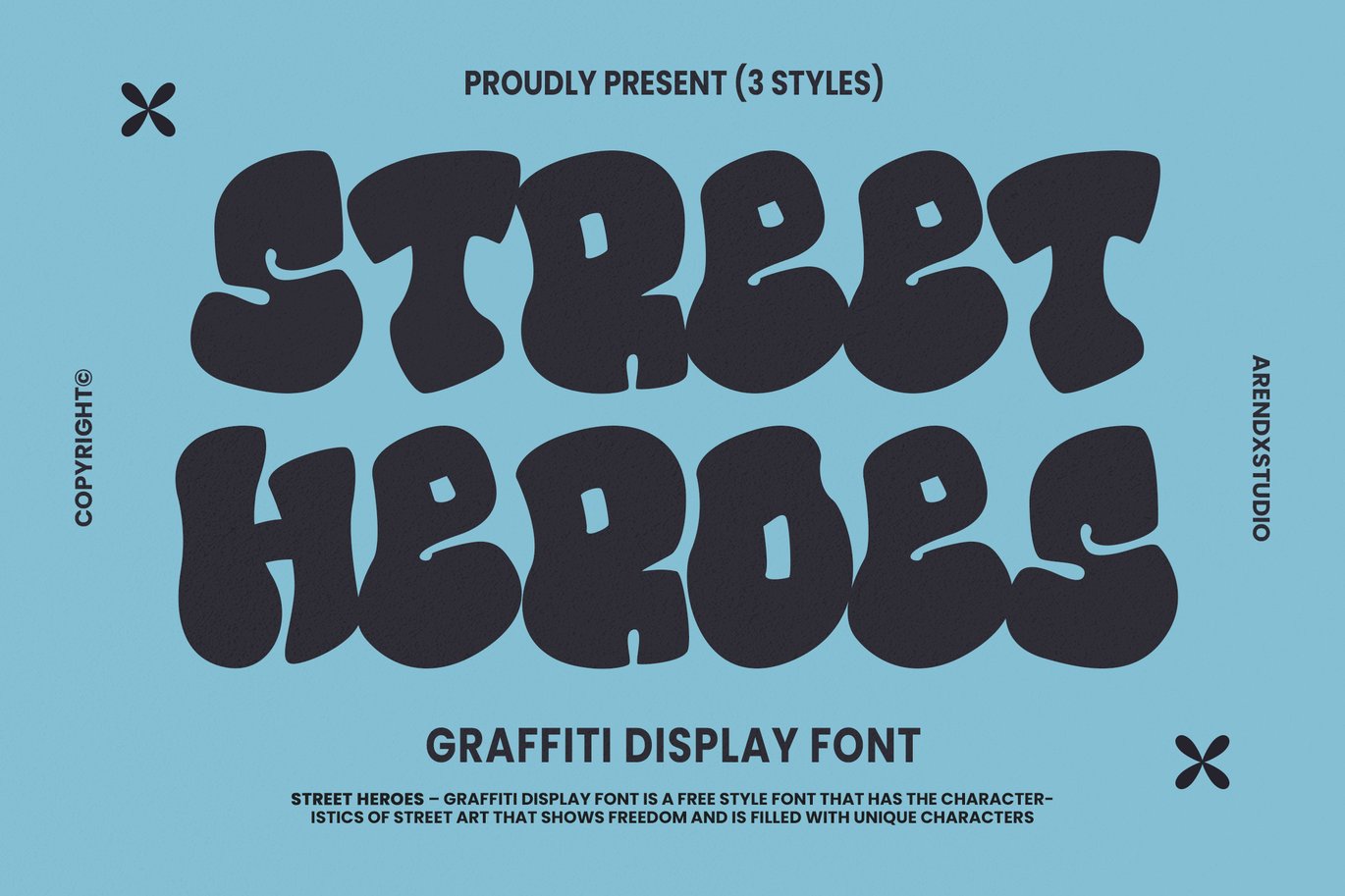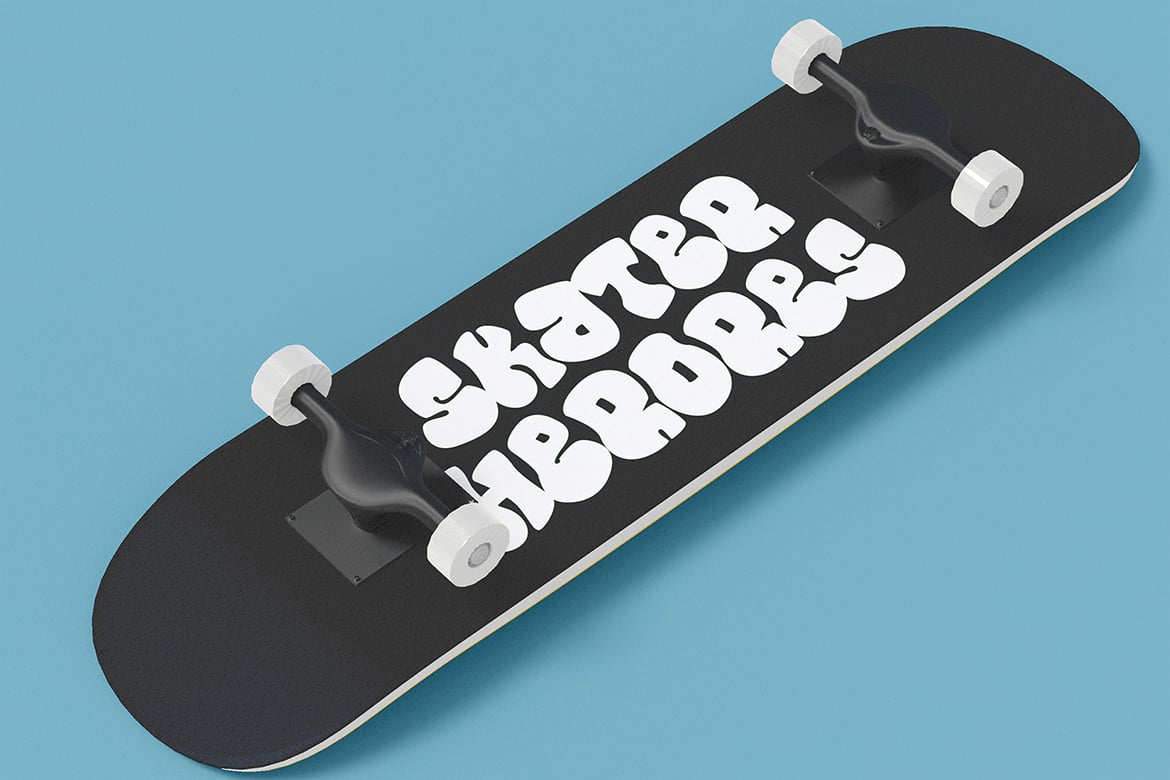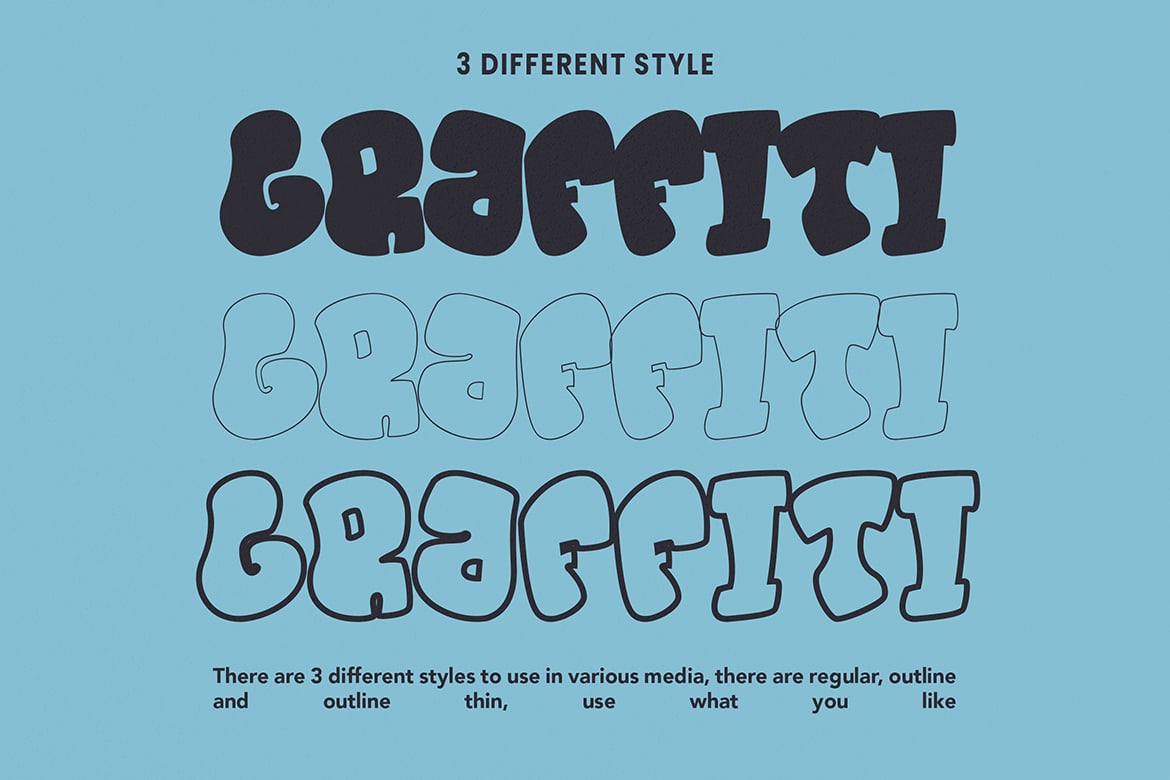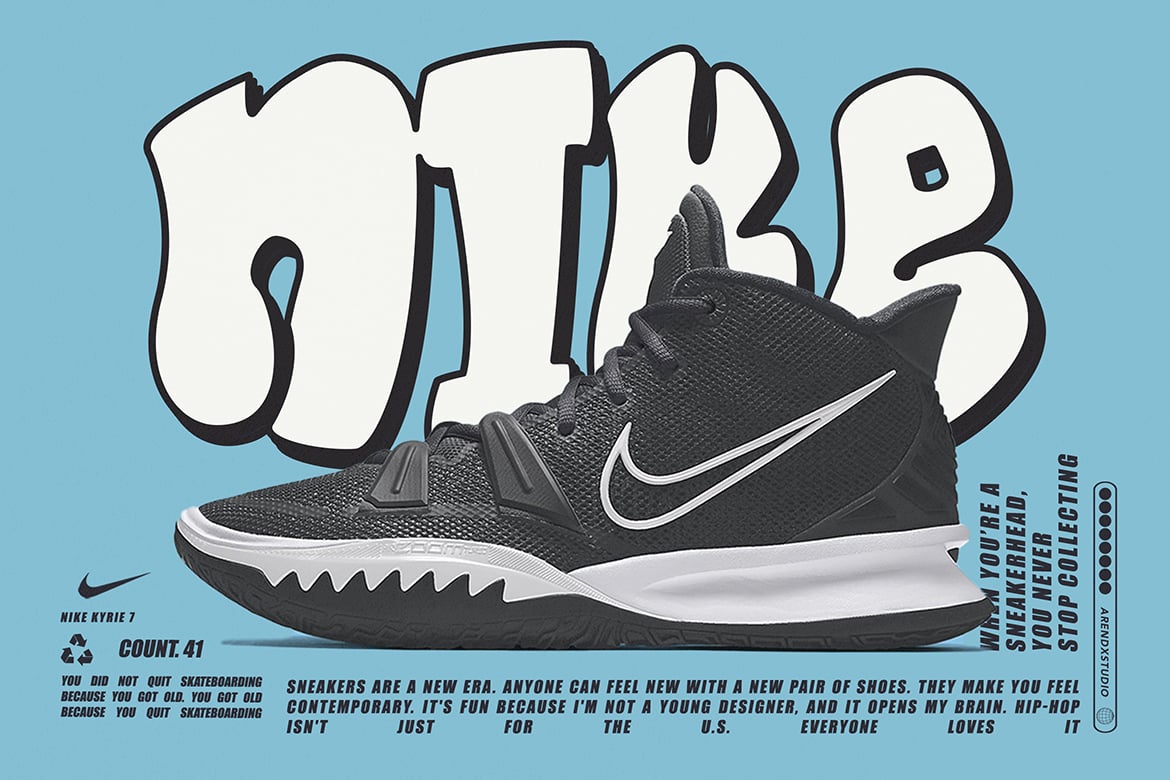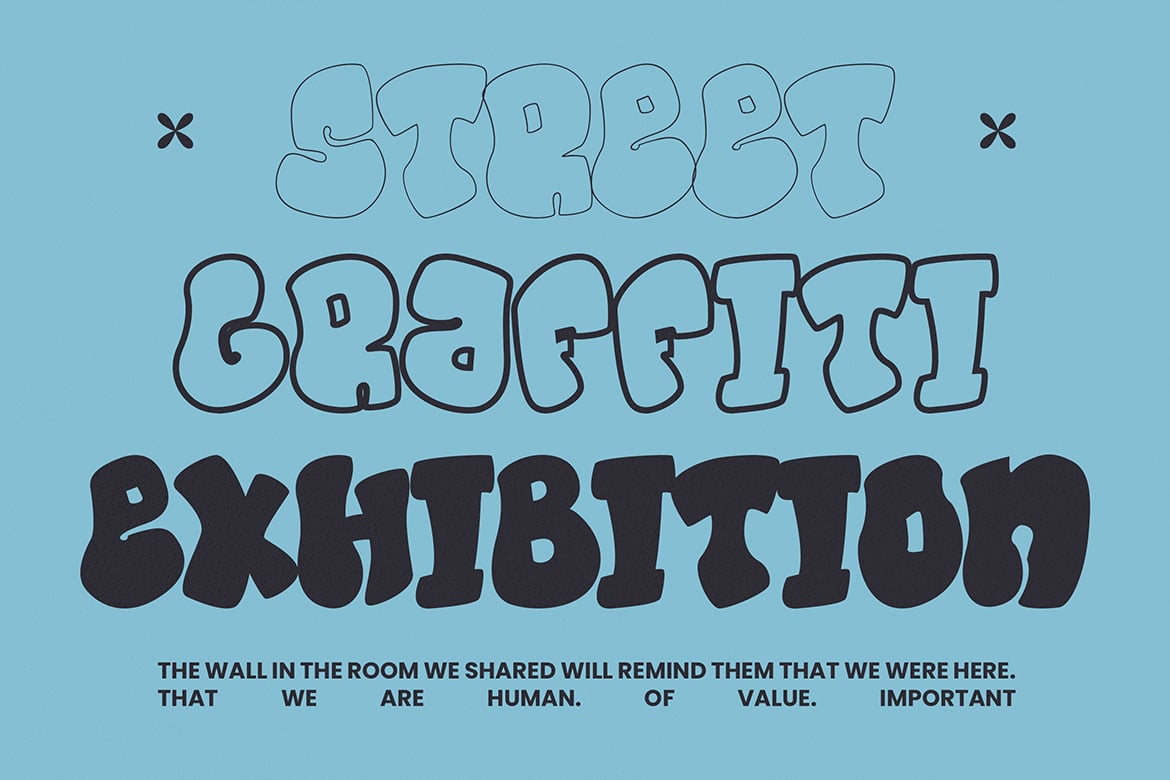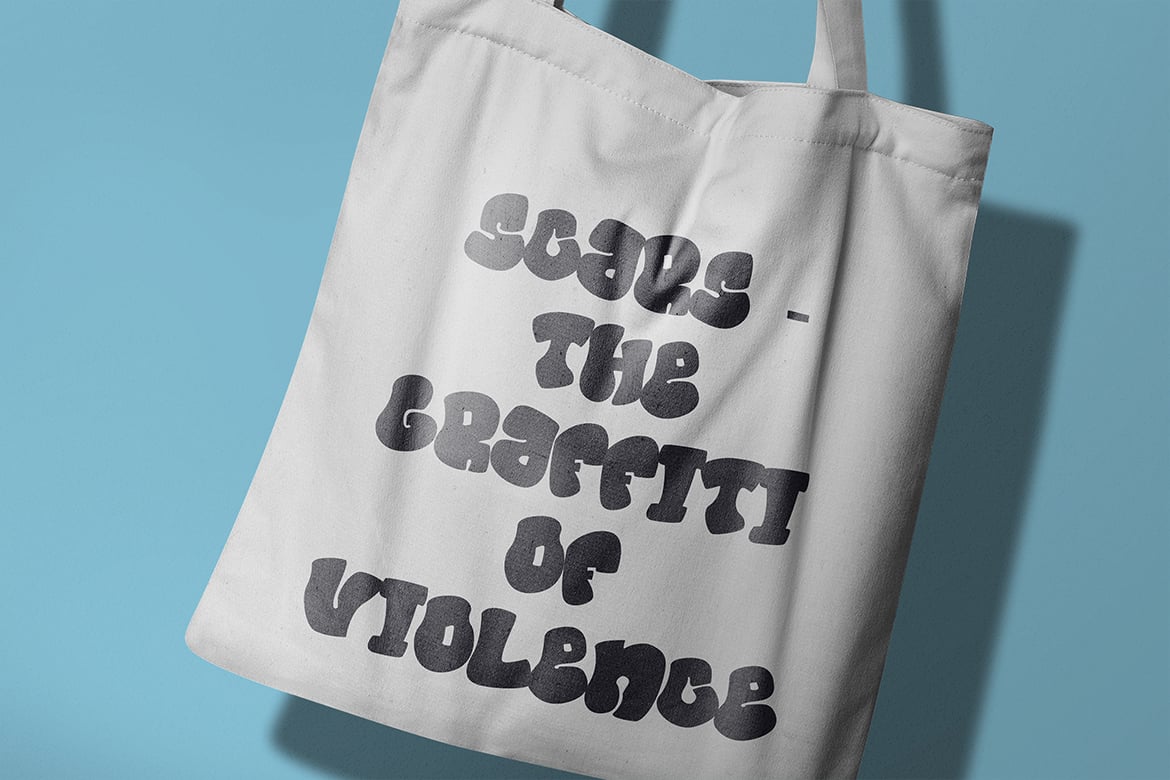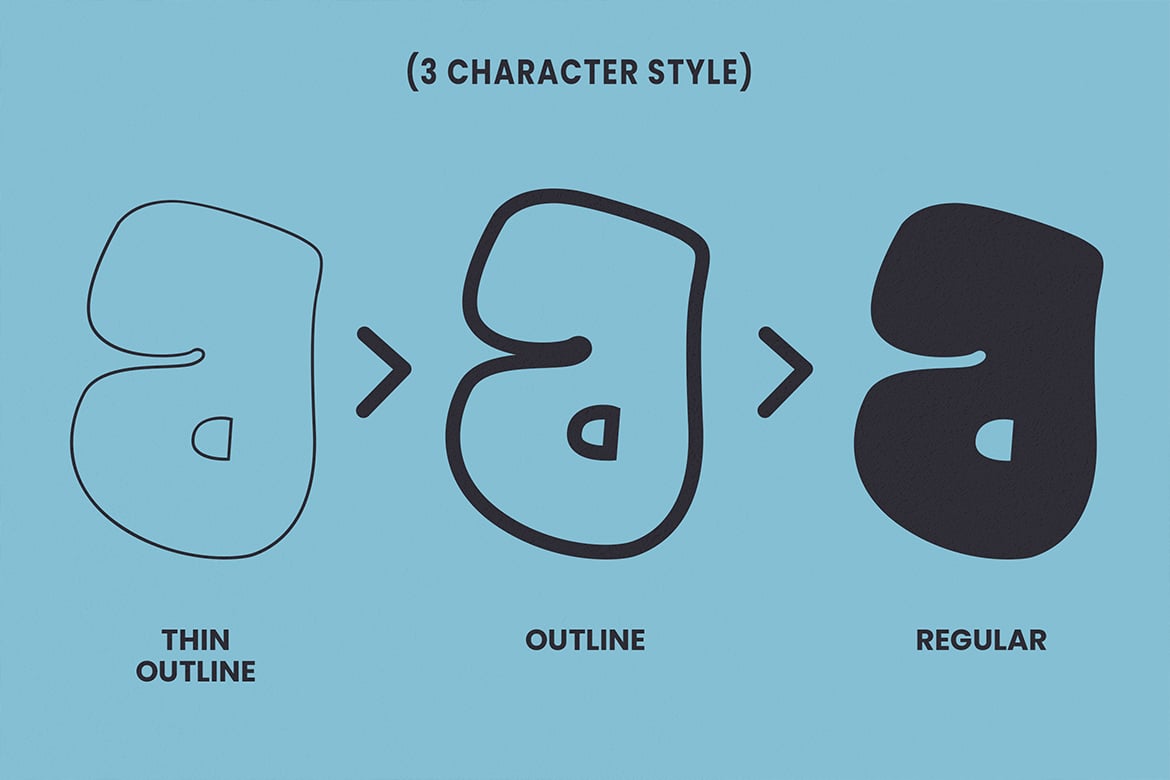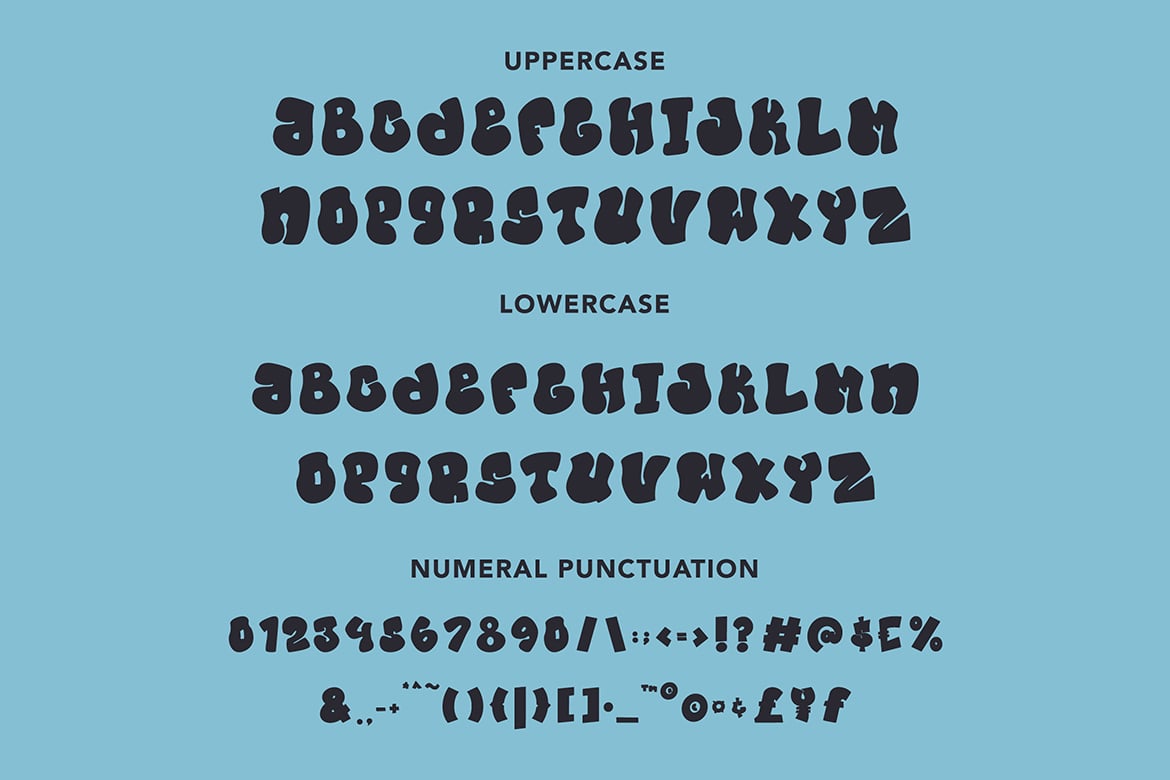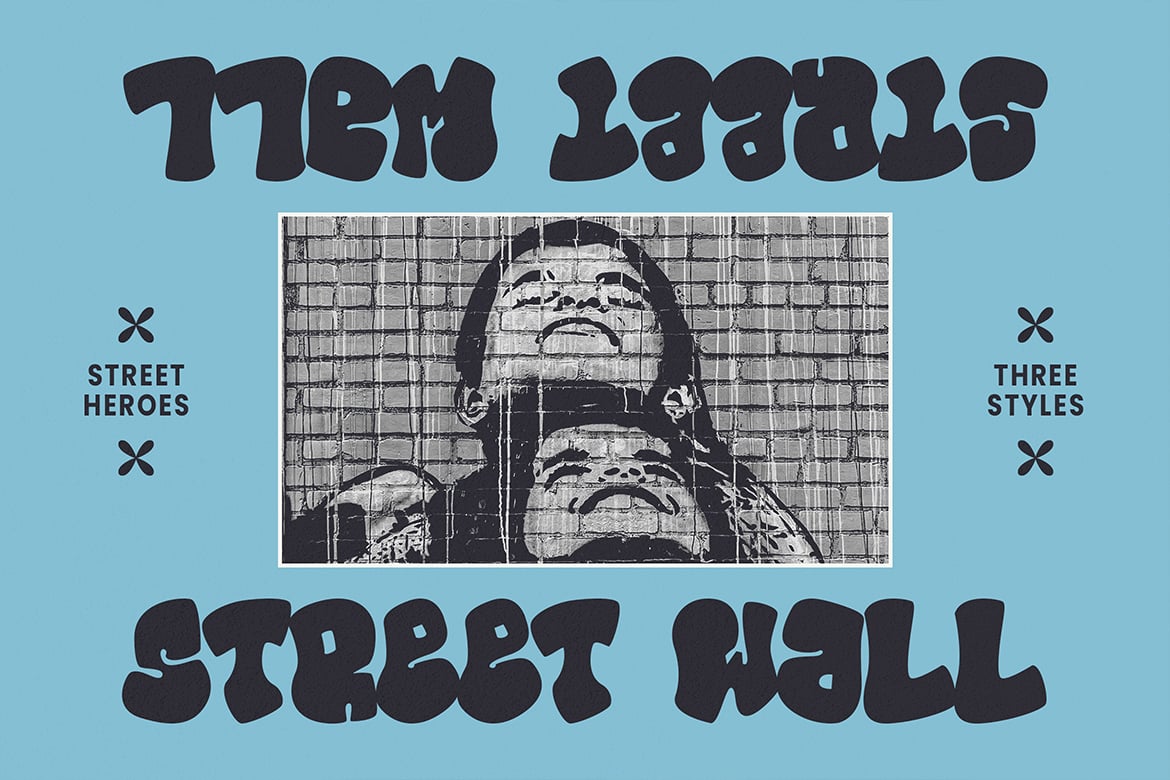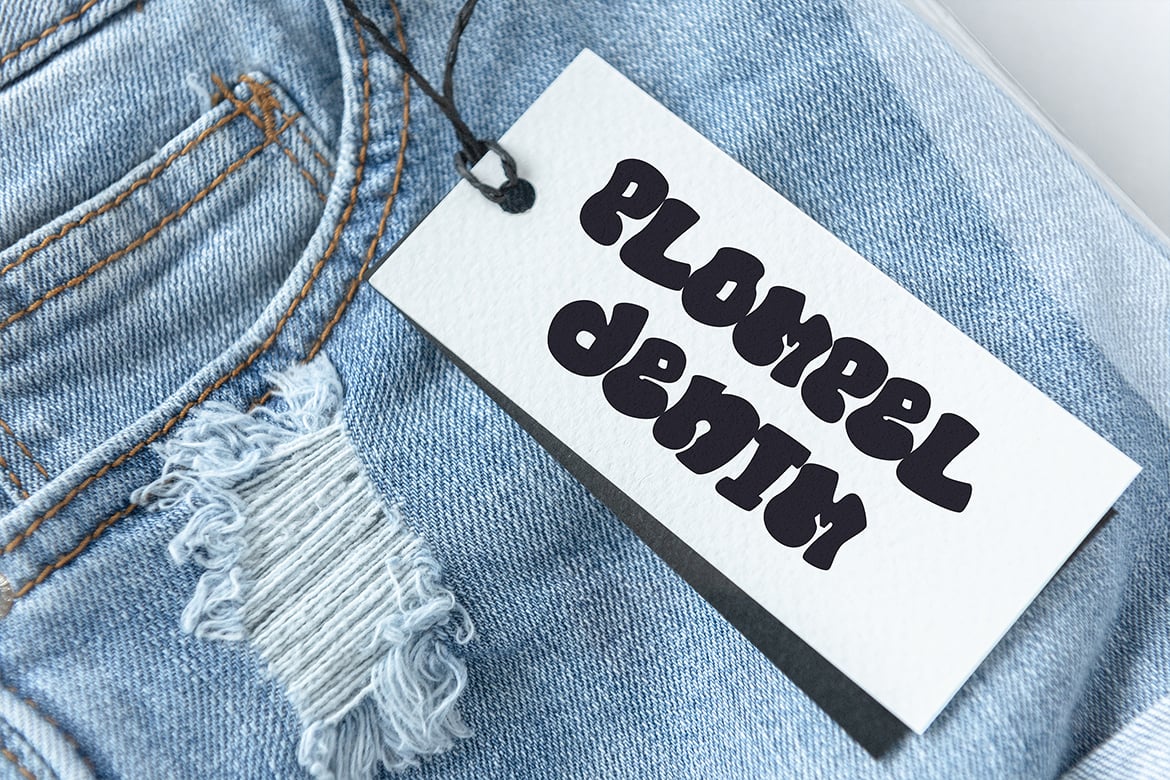
Street Heroes Font
Street Heroes – Graffiti Font Font is a free style font that has the characteristics of street art that shows freedom and is filled with unique characters